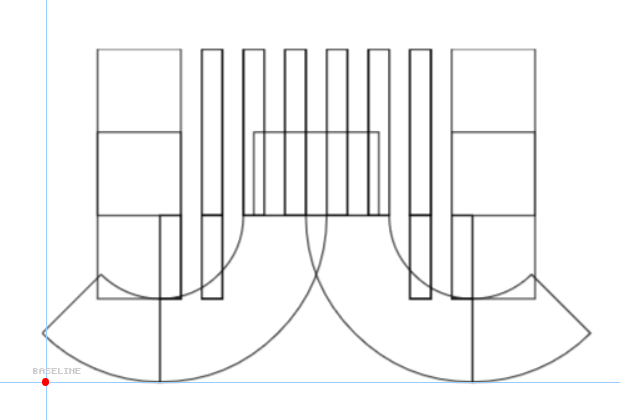
Constructivism 👌
Can't wait to see the finished result.. so far so good!
@Sed4tives: I'll stick with this version for now. I still don't understand how to fix this
What about that for "w" ?
5, v, w, y
And correction for my typo in the first sample image:
"Green (bottom) brick center aligned.."
should've said:
(These do allow horizontal flipping)
@Sed4tives: Great set of improvements.